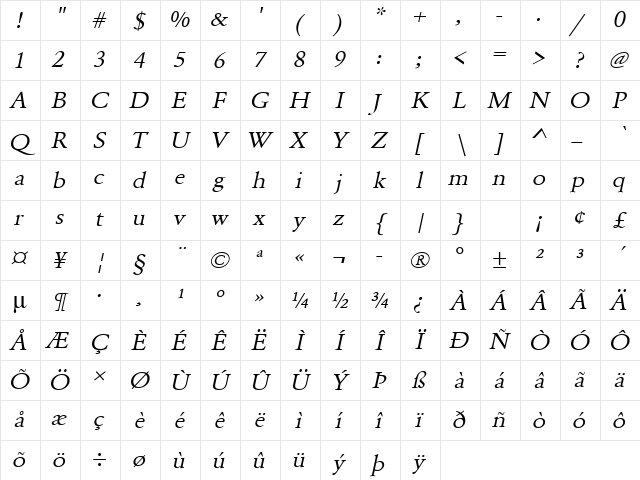
Complete URWGaramondTExtWid Oblique glyph index. Displaying only characters natively supported by URWGaramondTExtWid Oblique font.
Design Context for URWGaramondTExtWid
URWGaramondTExtWid is a composed and adaptable typeface that performs quietly and consistently across a wide range of design contexts. The slanted form adds forward momentum and visual energy.
Pro Tip: Use URWGaramondTExtWid for emphasis, pull quotes, and subheadings where its slanted energy can add rhythm to the layout.